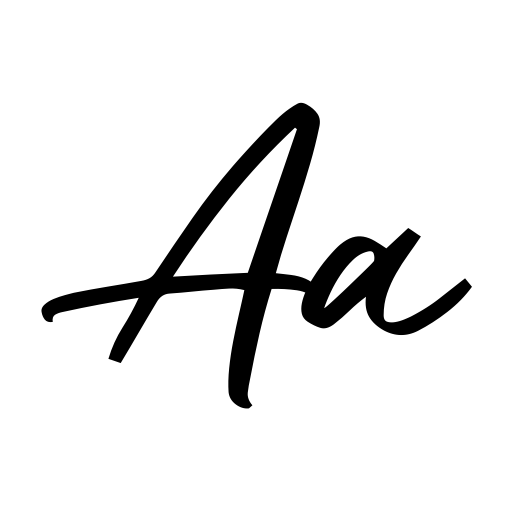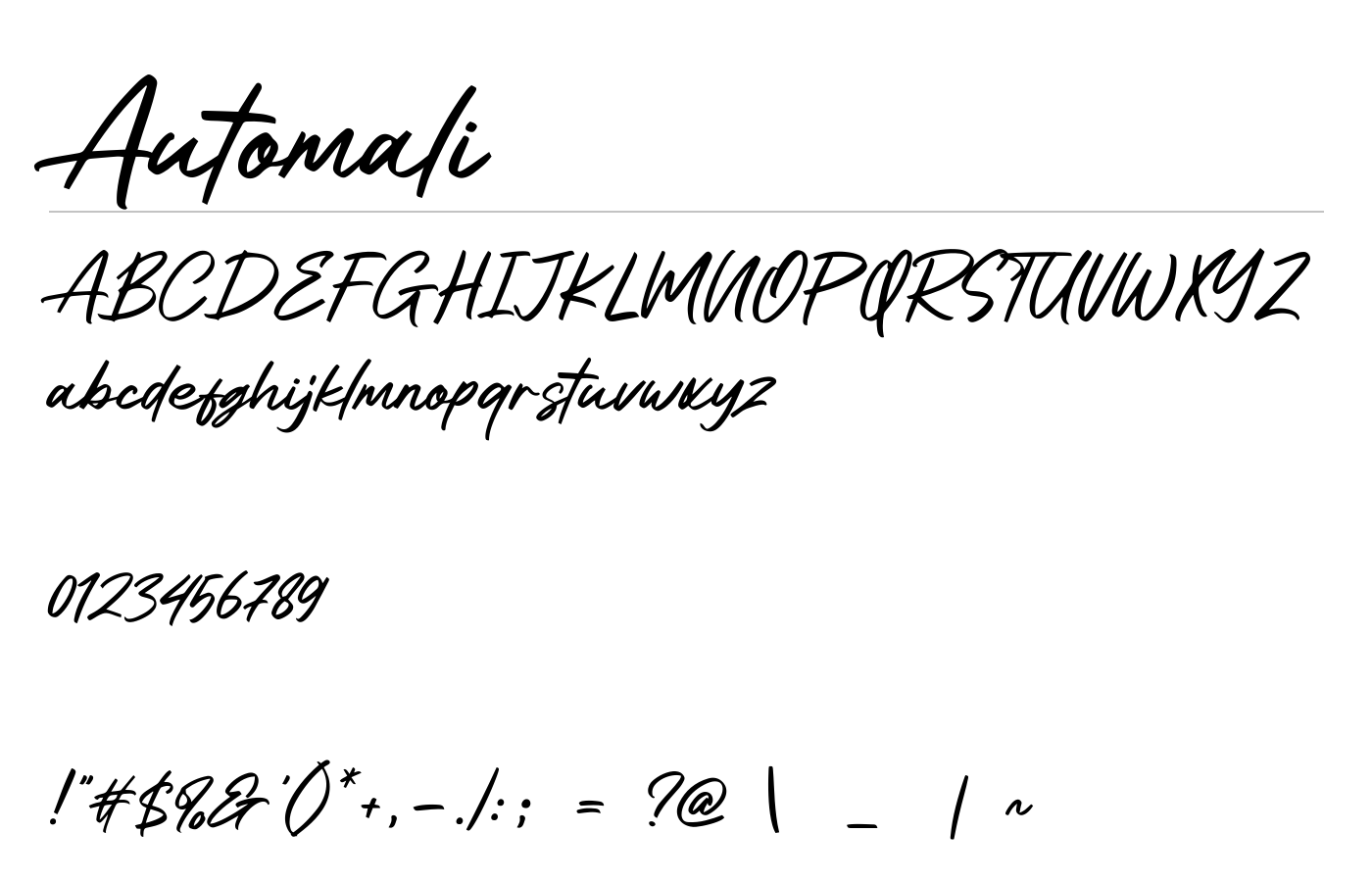
Automali is a lively, handwritten script font characterized by its fluid, cursive strokes and stylishly irregular letterforms. It conveys a personal, approachable feel that works beautifully for creative branding, invitations, and casual editorial use where a friendly yet elegant touch is desired. With its natural flow and balanced legibility, Automali shines in projects needing a modern, warm, and expressive handwritten style.
Automali Font
About Automali Font
| Font family | Automali Font |